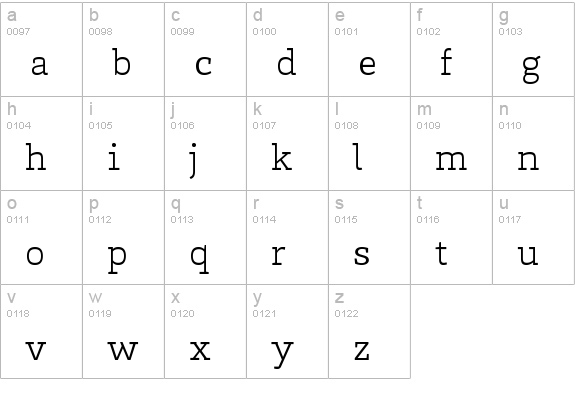
Brix Slab Light Font Details
Brix Slab Light is a refined, elegant variant in the Brix typeface family \xE2\x80\x94 well suited to elegant body text, refined sub-headings, and luxury branding.
Brix Slab Light font is a modern and elegant typeface that strikes the perfect balance between sophistication and readability. With its clean lines and subtle curves, this font is ideal for a wide range of design projects, from branding to editorial design. What sets Brix Slab Light font apart is its versatility - it can be used for both display and body text, making it a valuable addition to any designer's toolkit. Whether you're creating a sleek logo or designing a striking poster, this font will help you achieve a polished and professional look. Best of all, Brix Slab Light font is available for free download at FontsMarket.com. So if you're looking for a high-quality typeface that won't break the bank, look no further than Brix Slab Light font. Download it today and elevate your design projects to the next level.